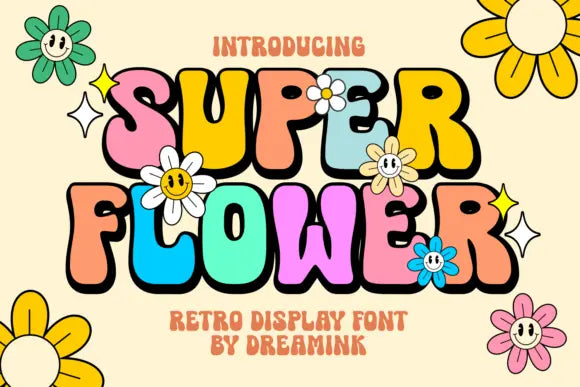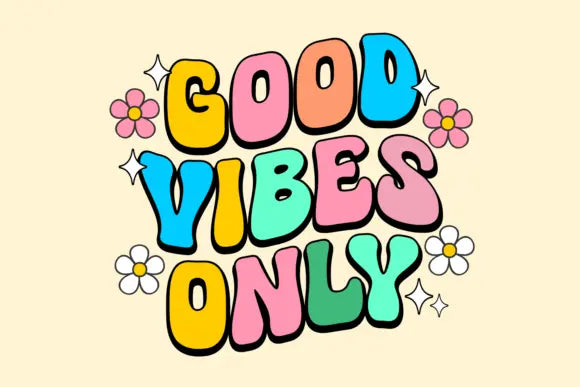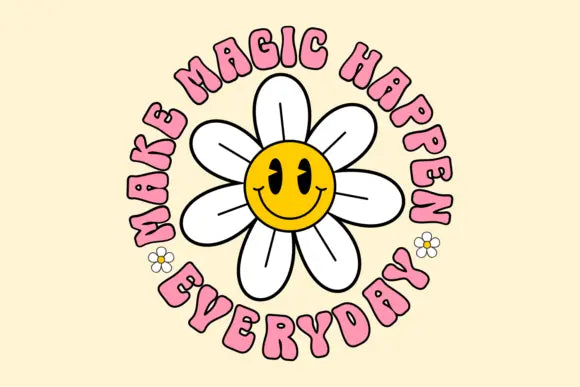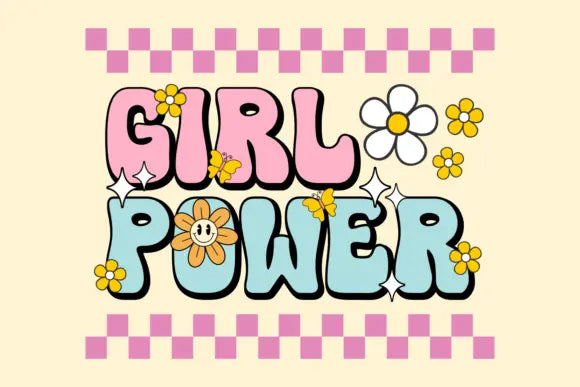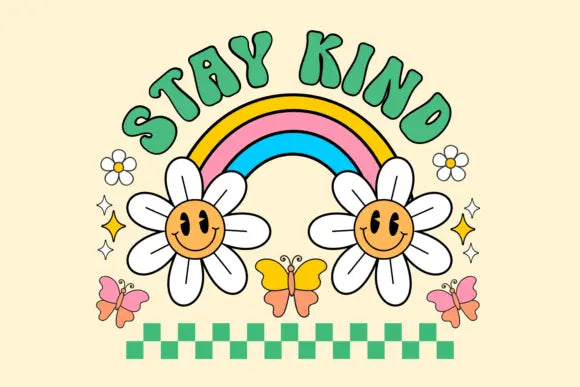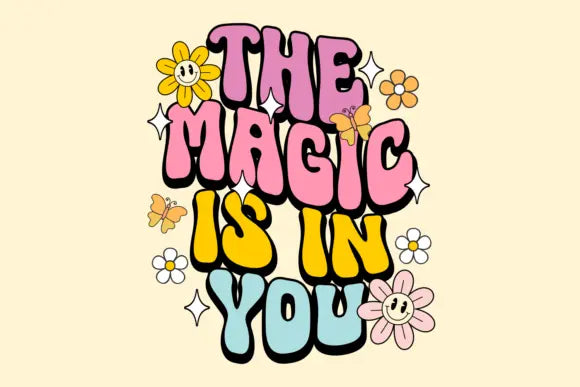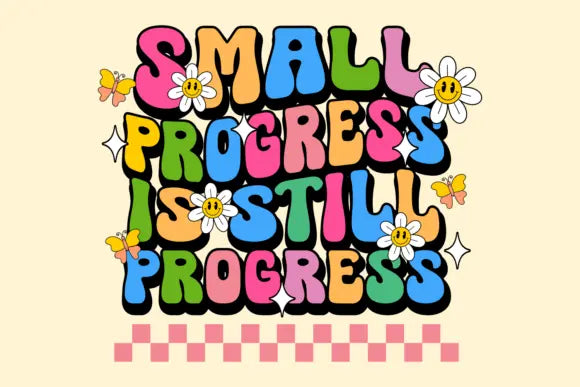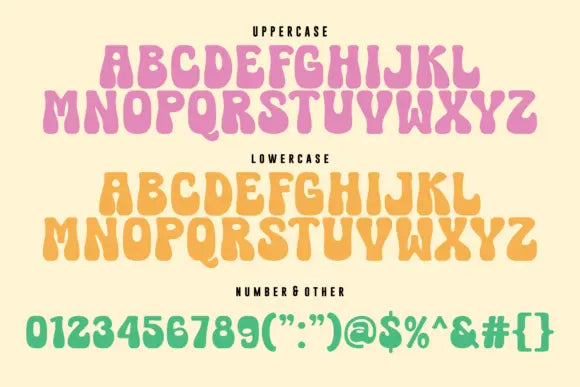
Super Flower Font
Bring Elegance to Life with Super Flower Font
Why Super Flower Font is a Must-Have for Designers?
Looking for a delicate and artistic font? Super Flower Font blends floral aesthetics with elegant typography, making it perfect for wedding invitations, feminine branding, and creative projects.
Super Flower Font – Graceful, Artistic & Beautiful
This font features handcrafted strokes and natural elegance, making it ideal for beauty brands, artistic packaging, and high-end branding. If you love sophisticated yet playful typography, Super Flower Font is the ultimate choice.
Key Features of Super Flower Font:
✦ Floral-Inspired Design – Great for weddings, invitations, and beauty branding.
✦ Elegant & Artistic – Adds a luxurious and natural touch.
✦ Perfect for Digital & Print – Works beautifully on logos, quotes, and packaging.
Create timeless elegance with Super Flower Font – where beauty meets design!